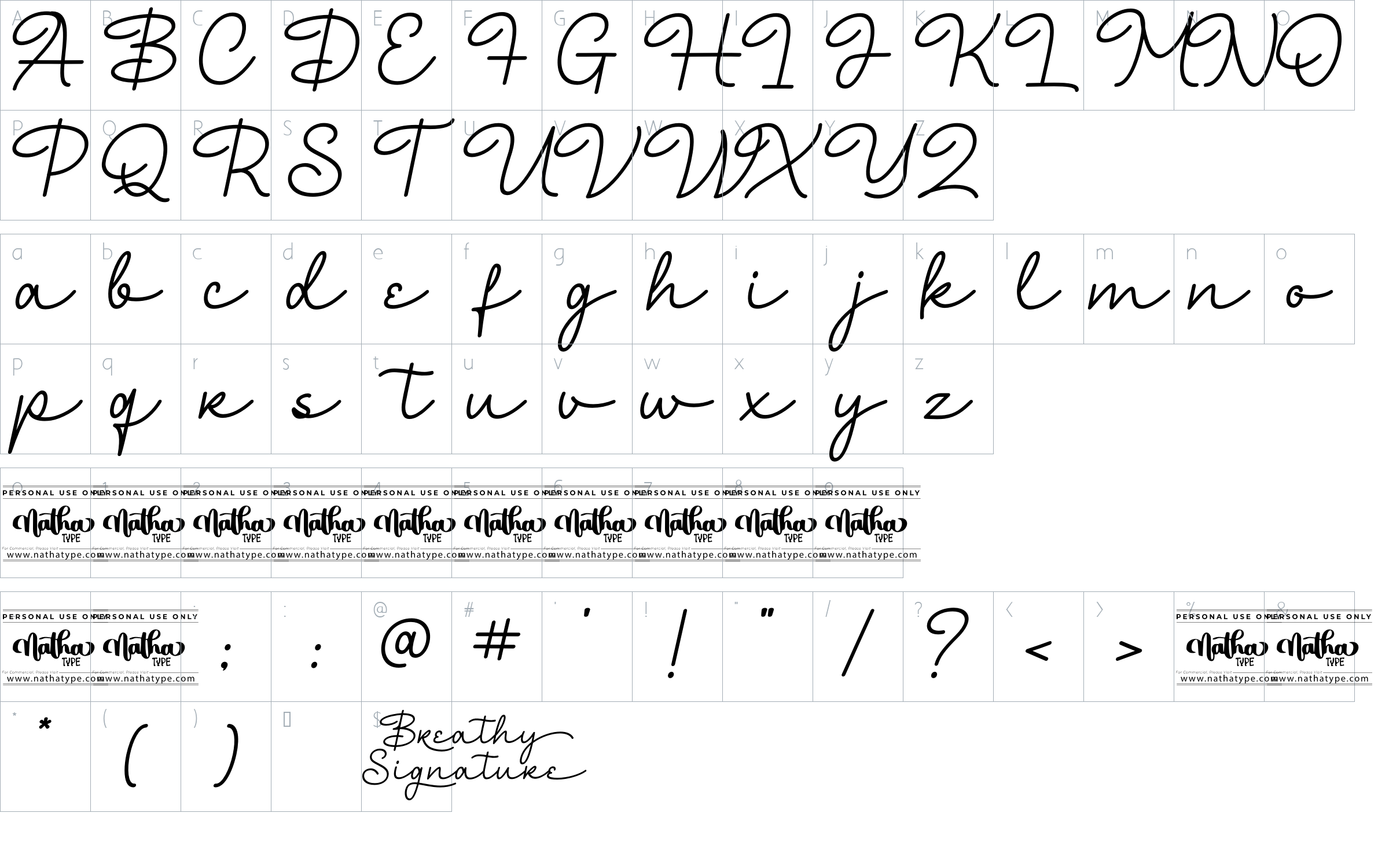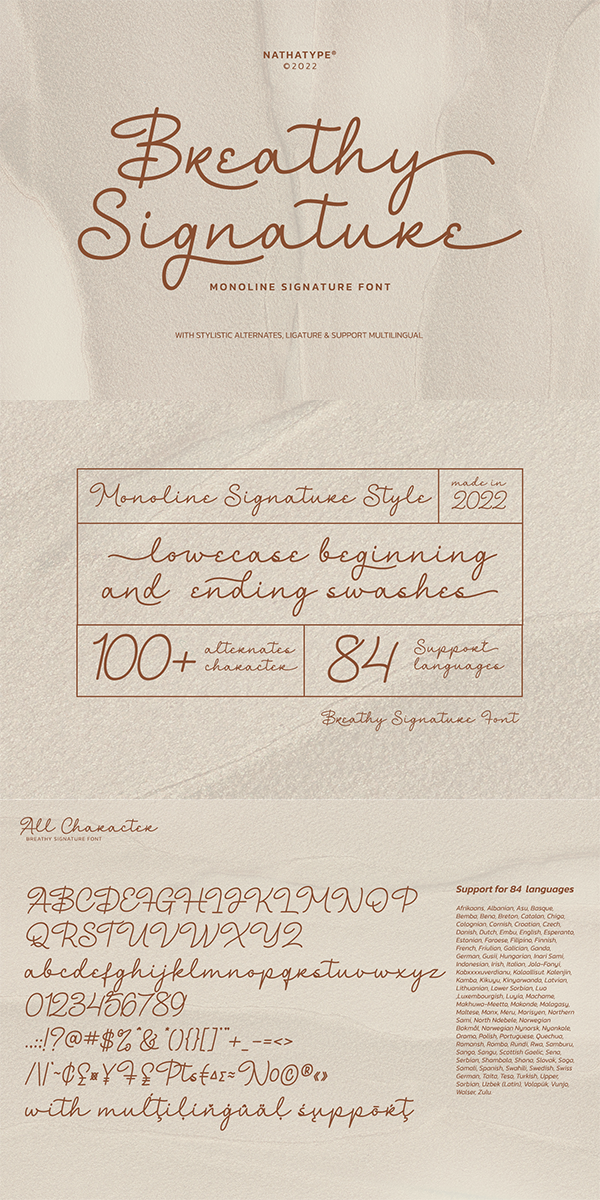
Breathy Signature Font
About Breathy Signature
Breathy Signature is a script font designed with actual handwriting. It has beautiful inky texture on its letter form. This font generates clean, elegant and trustworthy appearance. Moreover, it is legible with various width and weight that you can explore, combine, create and help you designing something.
-Upper and lowercases